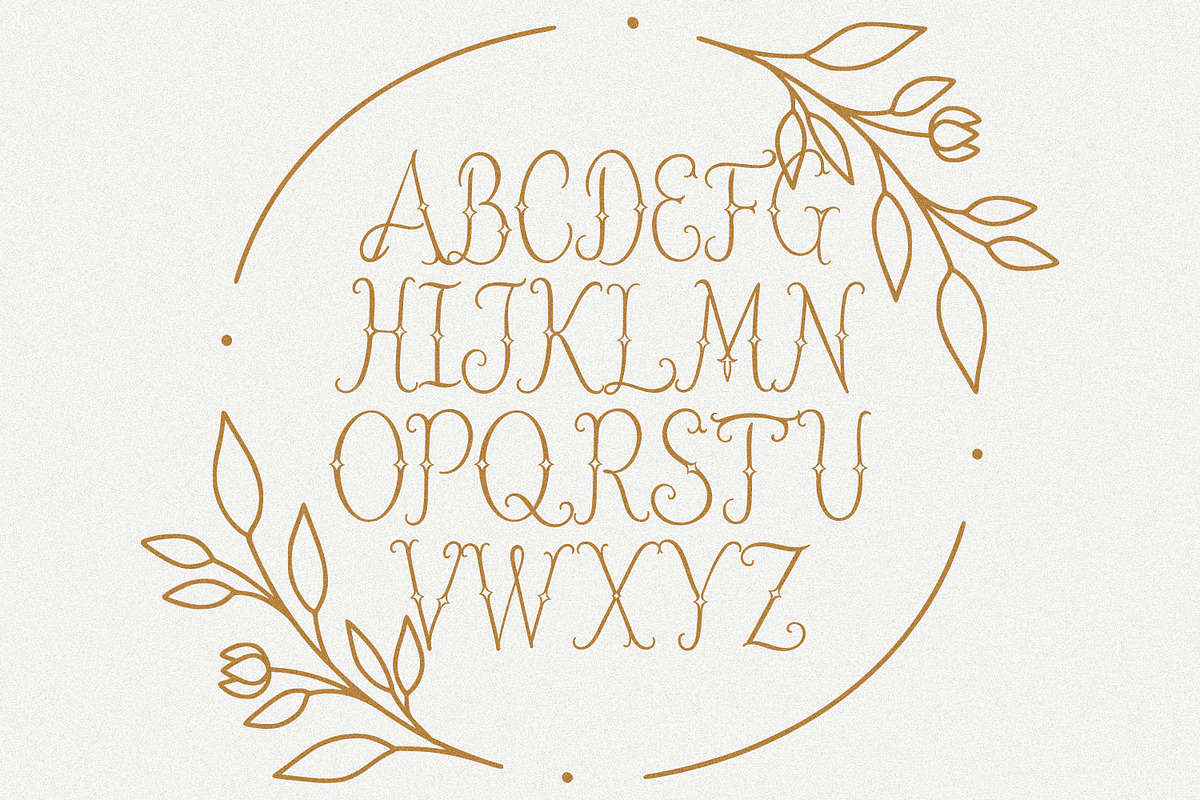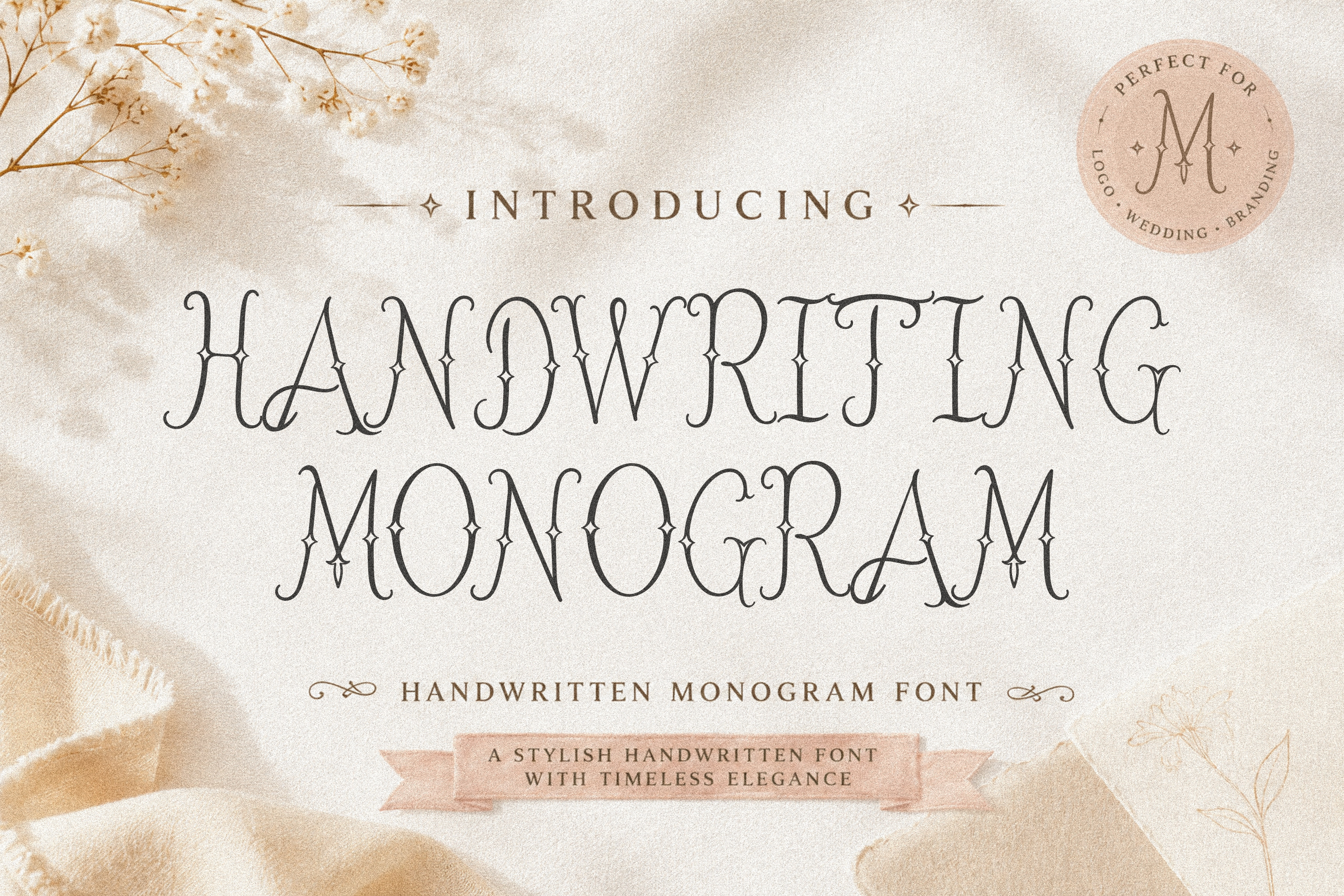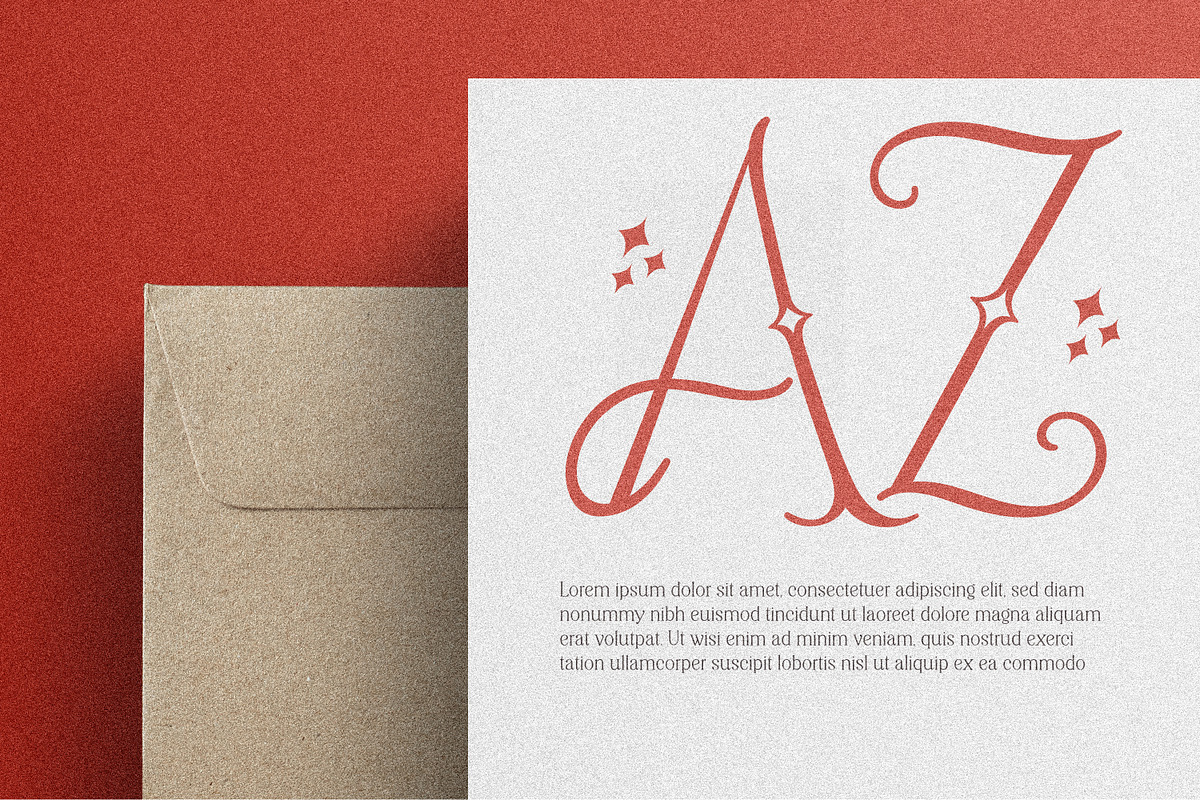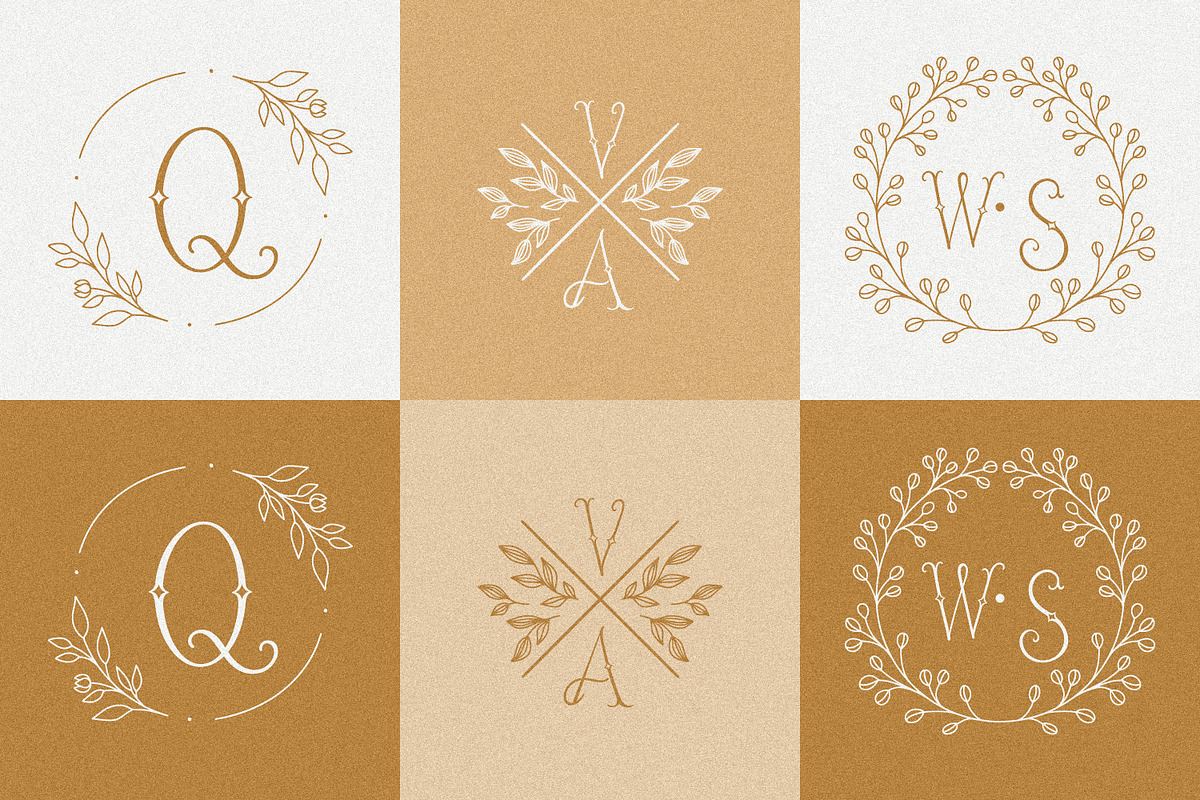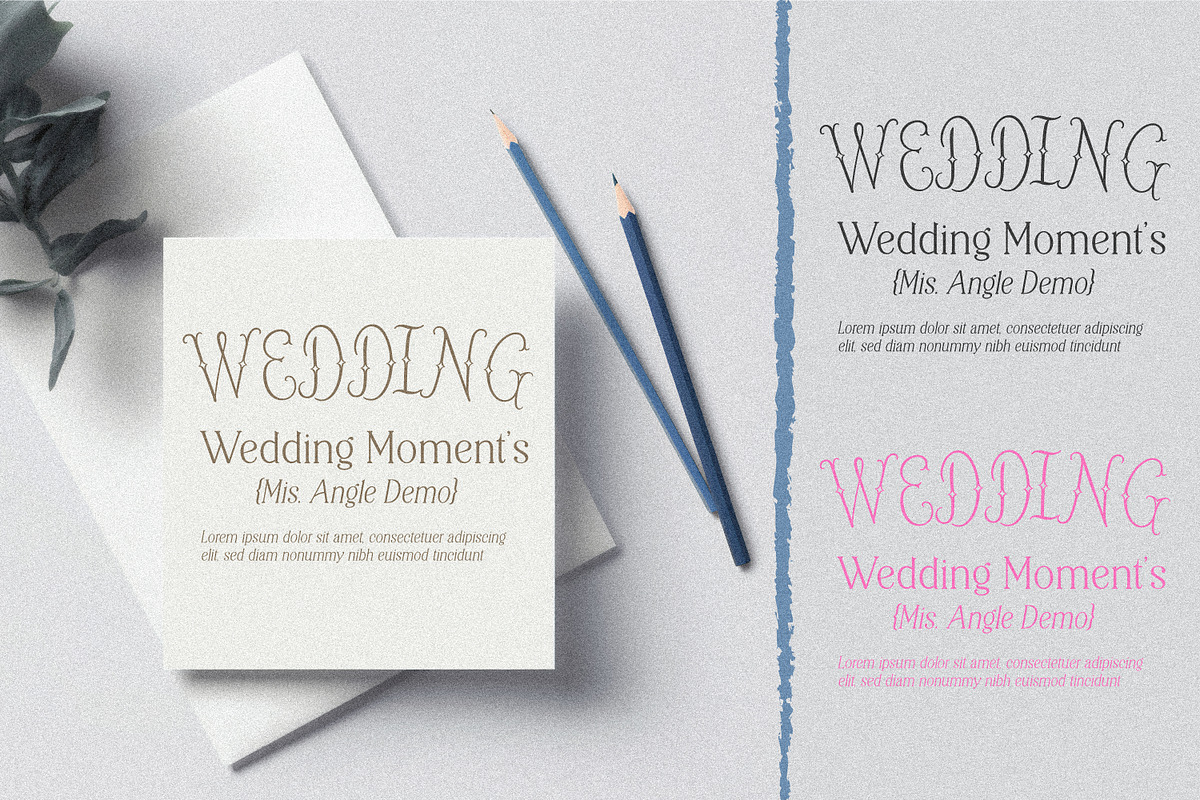
Handwritten monogram font
A unique handwritten monogram font featuring elegant, decorative alphabets designed to elevate embroidery, wedding details, personalized gifts, and luxury branding. Its refined letterforms and intricate yet clean style make it especially beautiful for monogrammed linens, bridal accessories, invitations, signage, and more. Perfect for adding a timeless, personalized touch to every creative project.